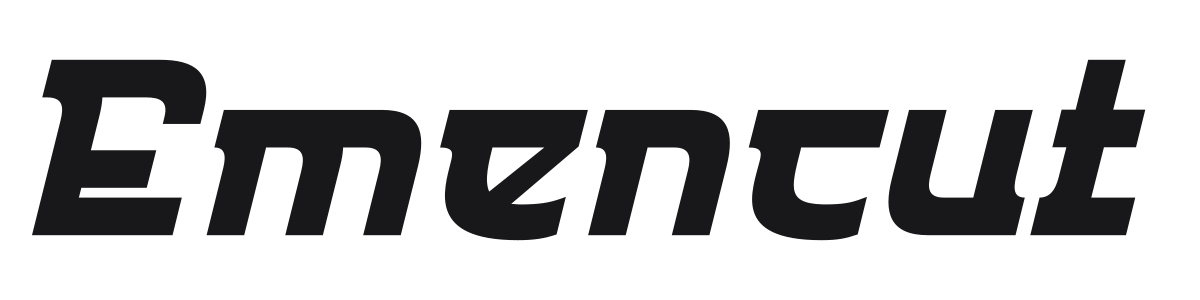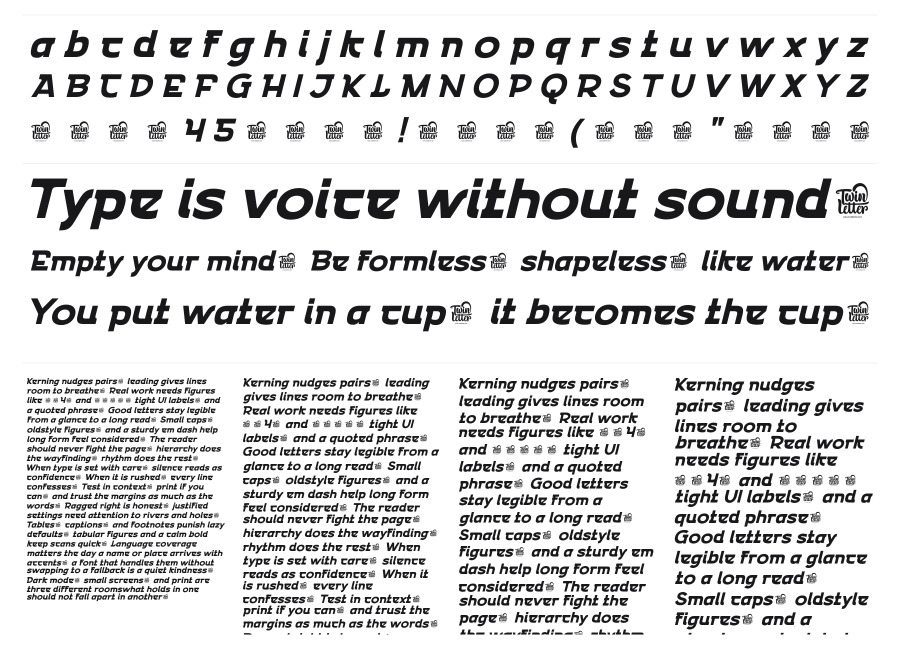
Emencut
Emencut is a bold, wide geometric sans-serif with a sharp forward italic that communicates speed and confidence. The near-monoweight strokes and rounded terminals keep it clean while the aggressive angle gives it an unmistakable edge. Strong choice for headlines, logos, and branding that needs weight and attitude.